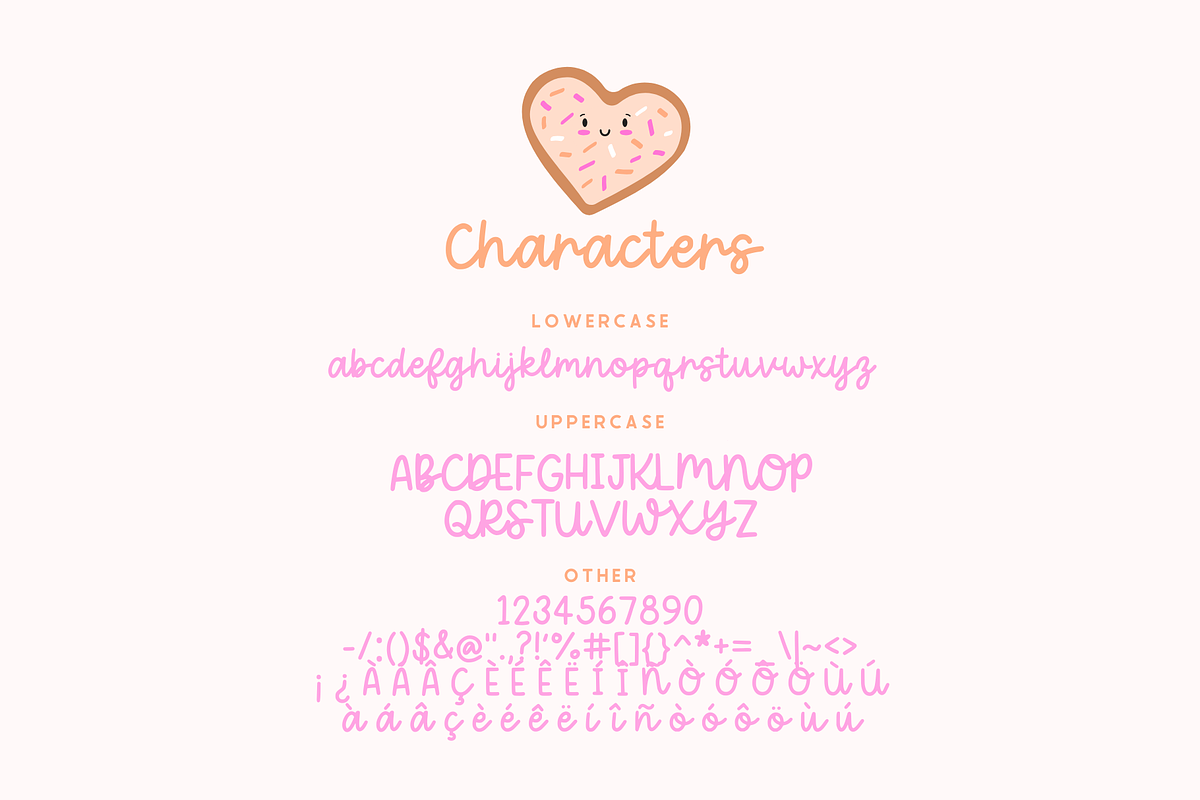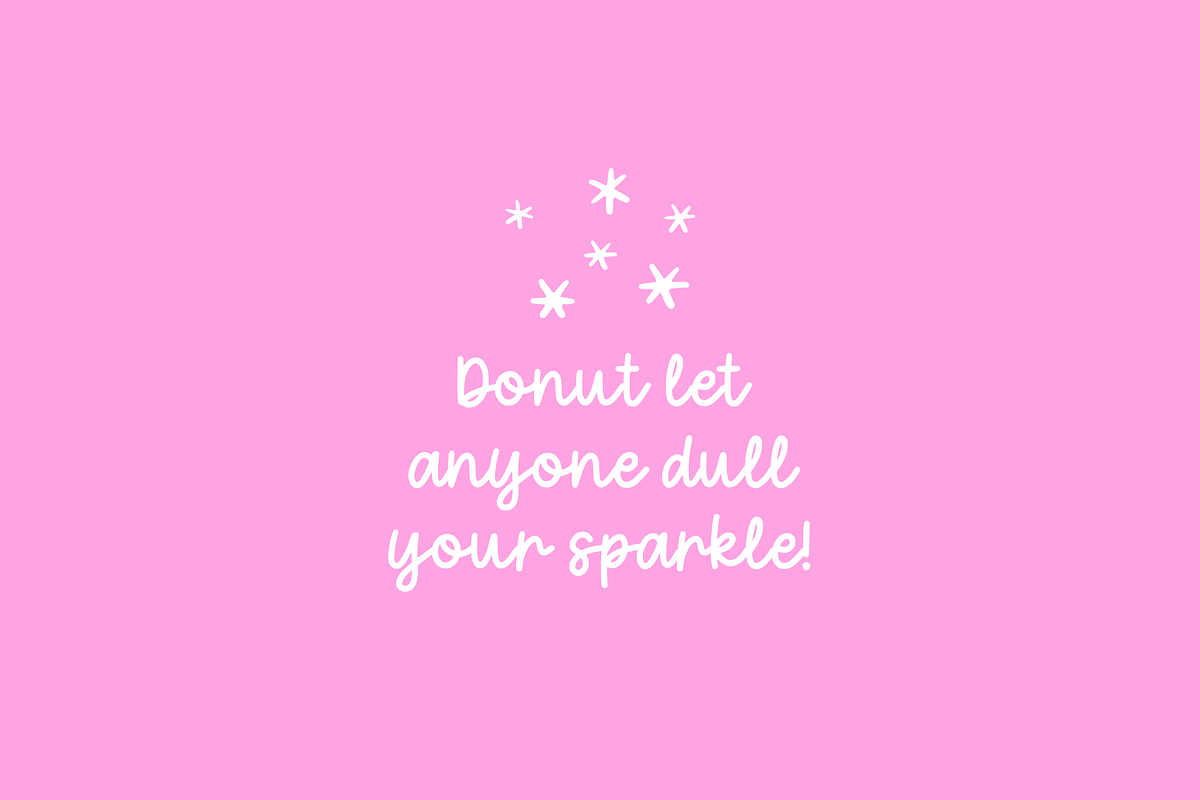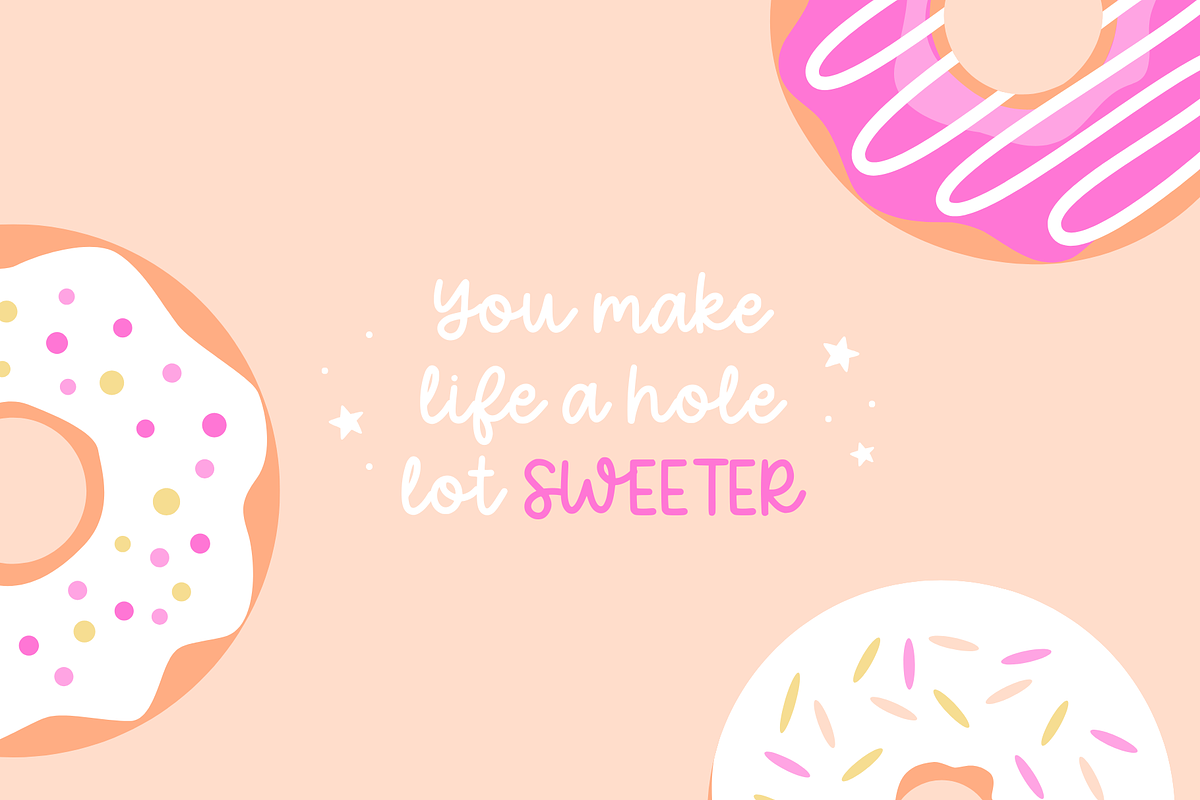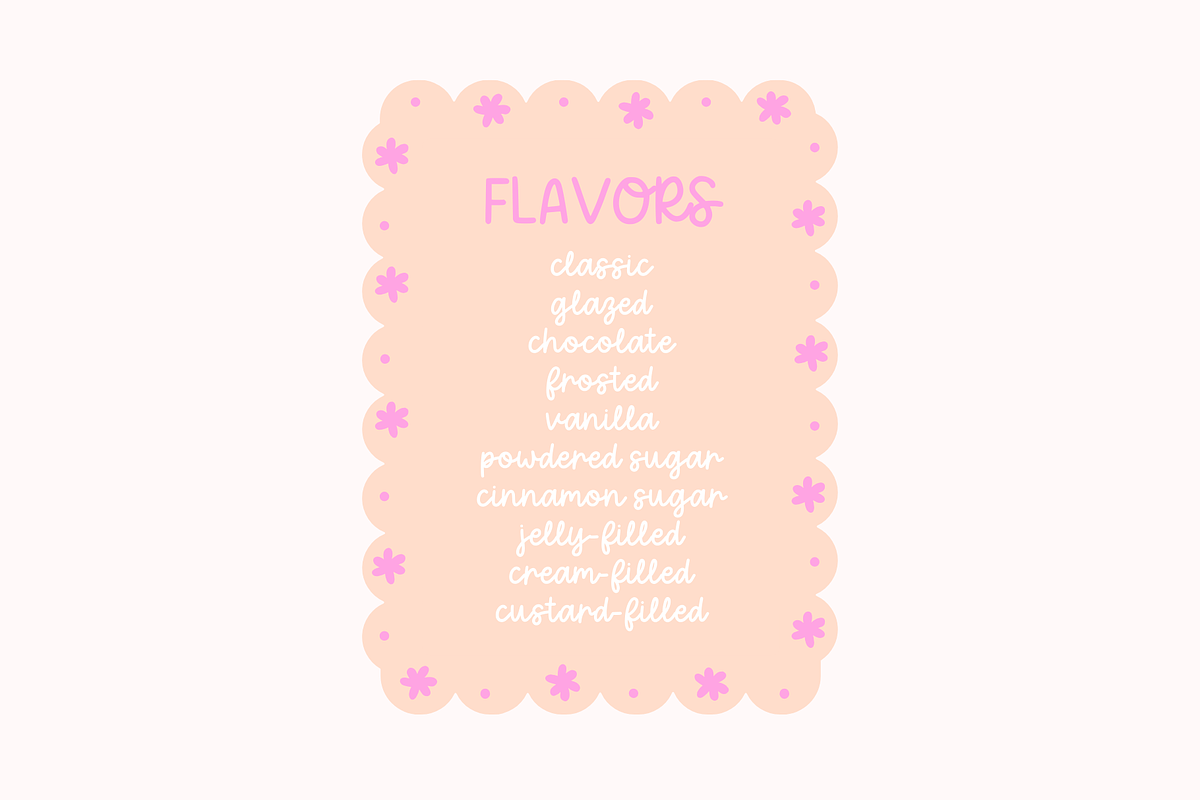
Donut Sprinkles Cute Cursive Font
Sprinkle some sweetness into your designs with our Donut Sprinkles Script Font! This cute and playful handwritten typeface is perfect for educators, crafters, and designers who want to add a delightful touch to their designs. Ideal for worksheets, classroom decor, and craft projects, this font will make your resources and creations stand out!